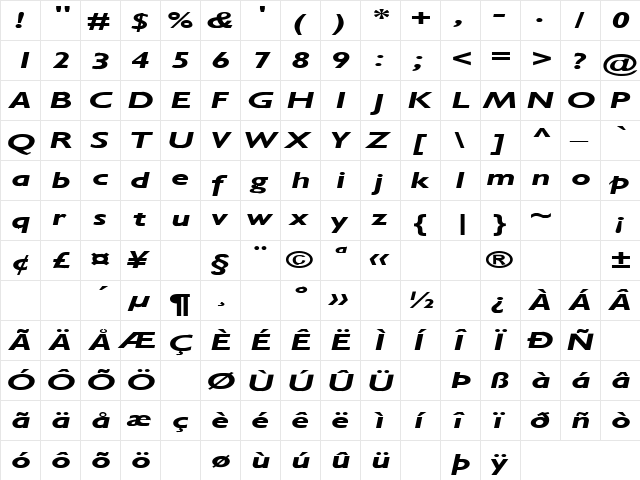
Achilles Last 3 Regular
Design Context for Achilles Last 3 Typeface
Achilles Last 3 takes a measured approach to typography — its balanced proportions and neutral character make it a reliable workhorse for both digital and print work.